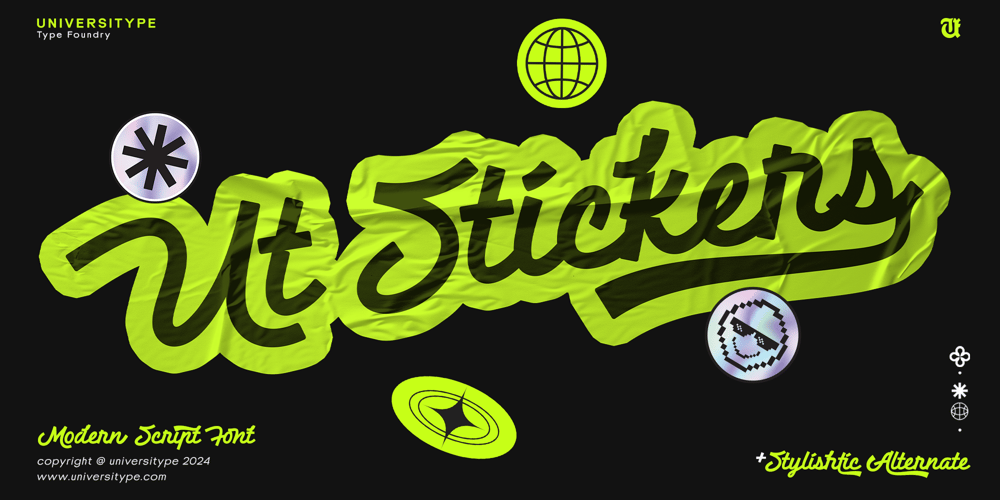
UT Stickers Font Family was designed by Muh. Aswar and published by Universitype. UT Stickers contains 1 styles and family package options. UT Stickers is more than just a script font; it’s a toolkit for creativity. Here’s a closer look at the features that make this font a must-have for designers:1. Modern Script Style: UT Stickers belongs to the script category, characterized by its fluid, handwritten appearance. This style is perfect for adding a personal touch to your designs, making it feel more authentic and engaging. The script nature of UT Stickers gives it a sense of movement and flow, which is ideal for creating eye-catching headlines and logos.2. 9 Sets of Stylistic Alternates: One of the standout features of UT Stickers is its extensive collection of stylistic alternates. With 9 different sets, designers have a wealth of options to choose from, allowing them to customize the look and feel of their text. Whether you want a more formal appearance or a playful, quirky vibe, the stylistic alternates give you the flexibility to achieve your desired effect.3. 20+ Ligatures: Ligatures are a crucial element in script fonts, ensuring that letter combinations flow smoothly together. UT Stickers includes over 20 ligatures, enhancing the natural feel of the typeface. These ligatures help maintain the fluidity of the script, preventing any awkward gaps or overlaps between letters. This attention to detail ensures that your text looks polished and professional, even when using more complex letter combinations.4. 5 Swashes: Swashes are decorative elements that add flair to a font, often used at the beginning or end of a word to create a more dramatic effect. UT Stickers includes 5 swashes, giving you the ability to add an extra touch of elegance or playfulness to your designs. These swashes can be particularly effective in branding materials, where a little extra embellishment can make a big impact.5. Multilingual Support: In today’s global market, having a font that supports multiple languages is essential. UT Stickers is equipped with over 600 glyphs and supports more than 200 languages, making it a versatile choice for international projects. Whether you’re designing for English, Spanish, French, or any other language, UT Stickers ensures that your text will be legible and aesthetically pleasing.